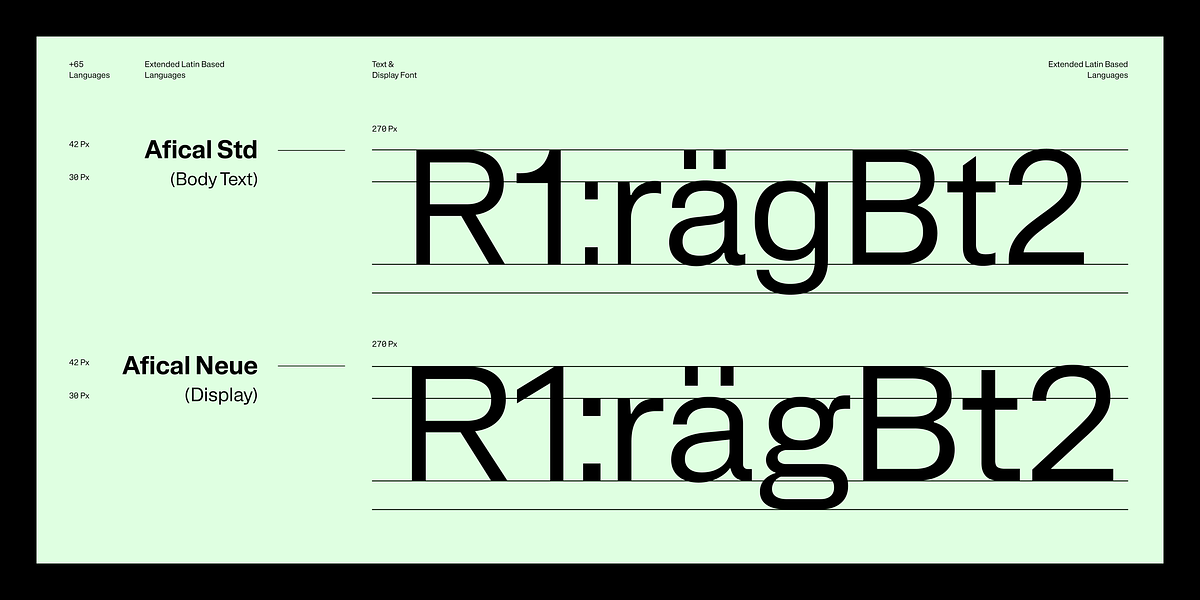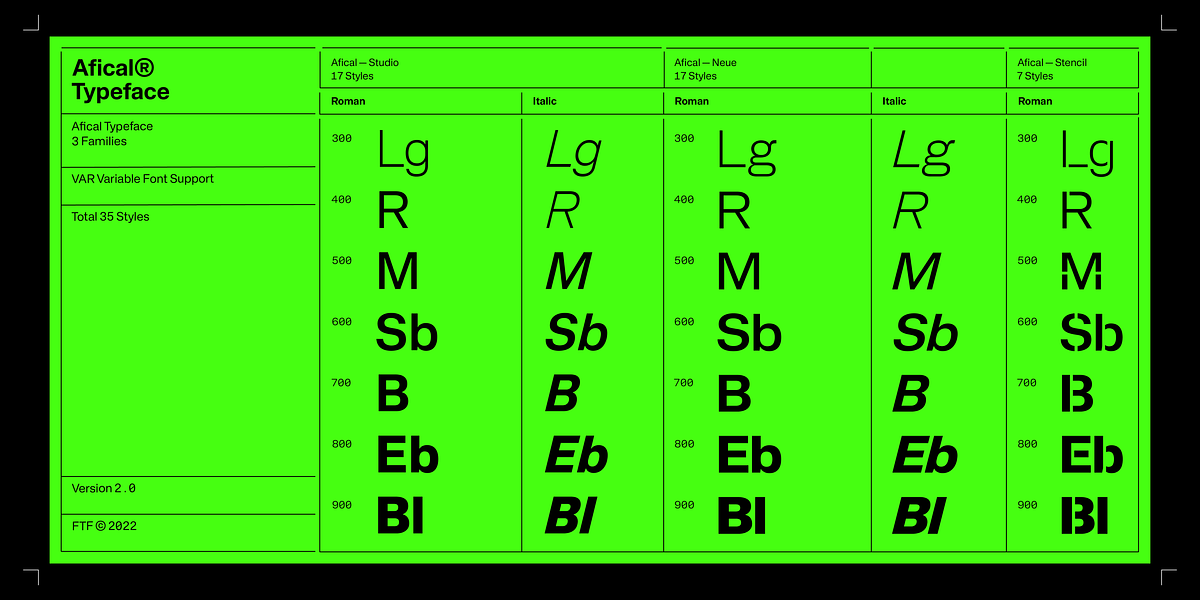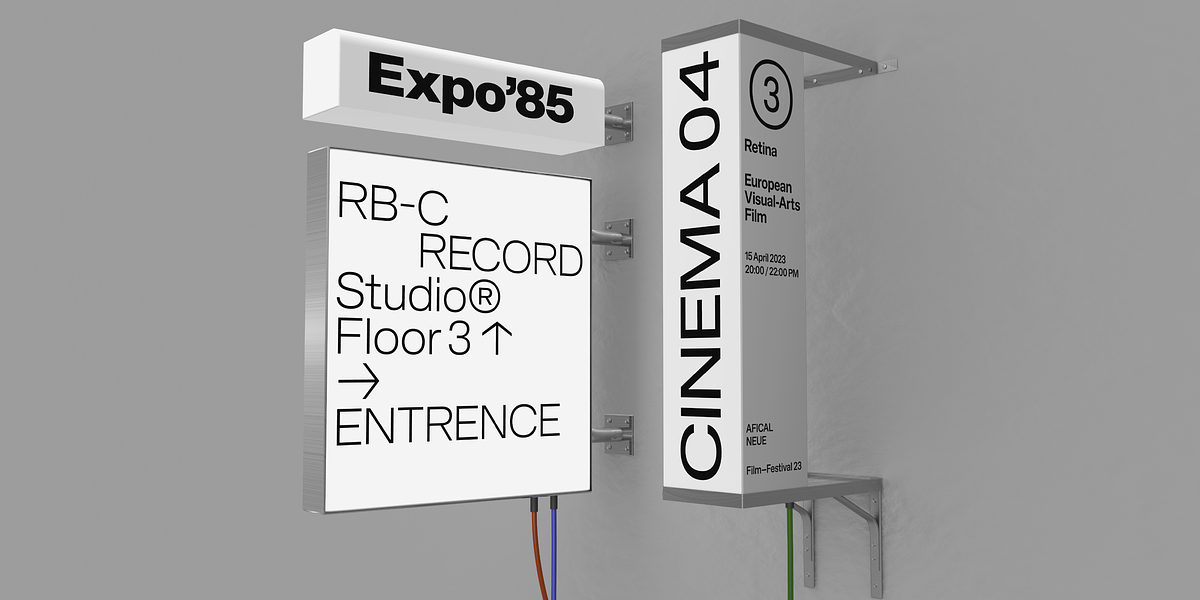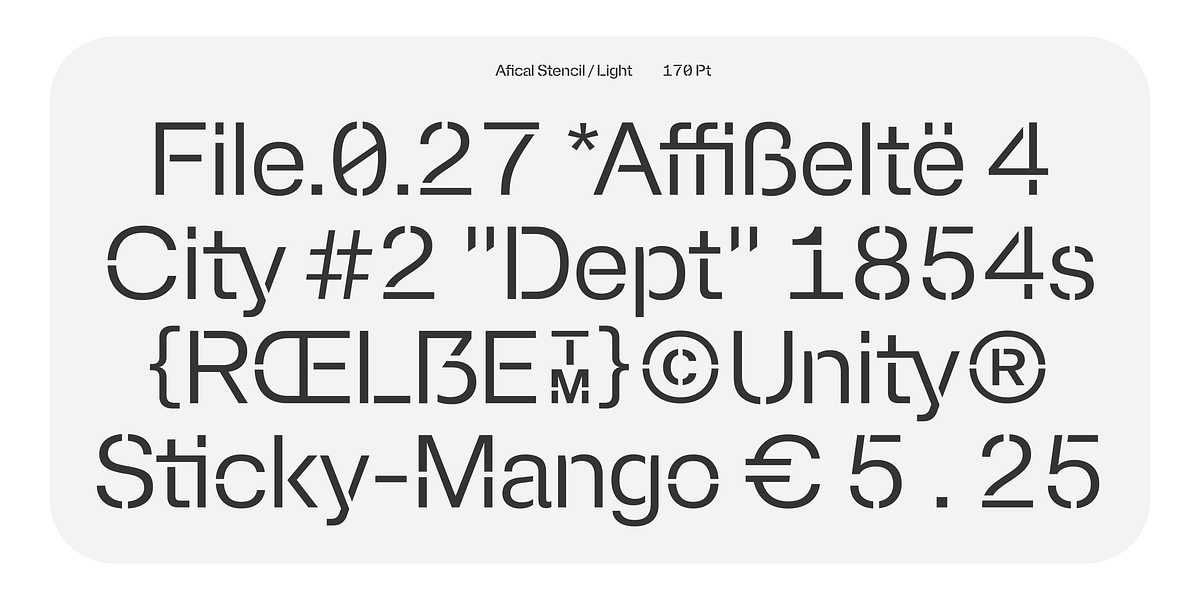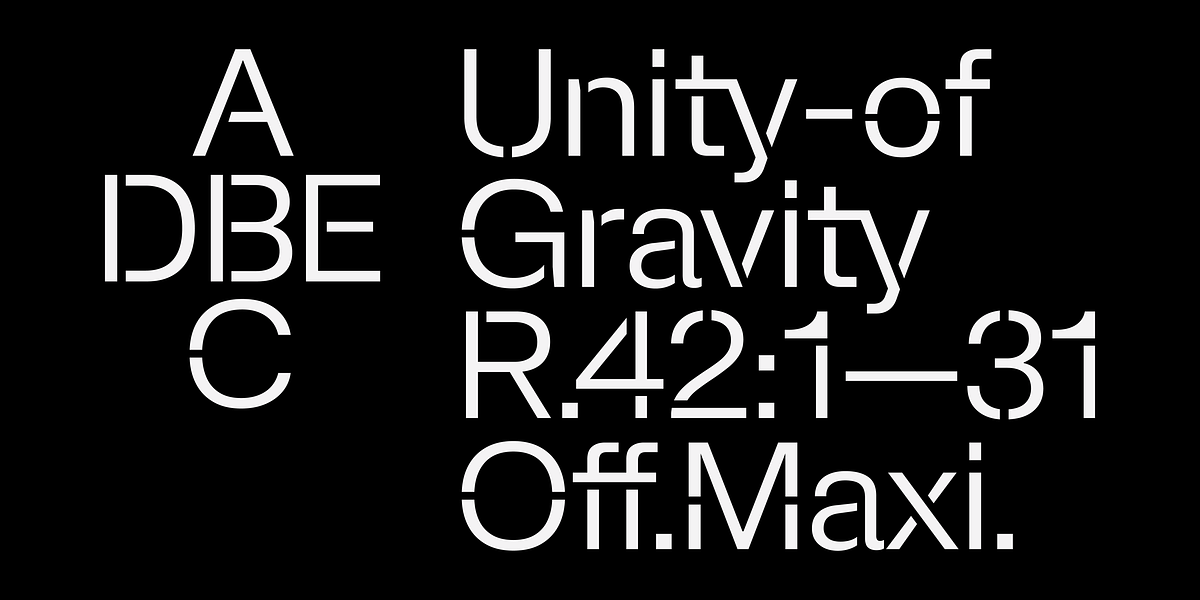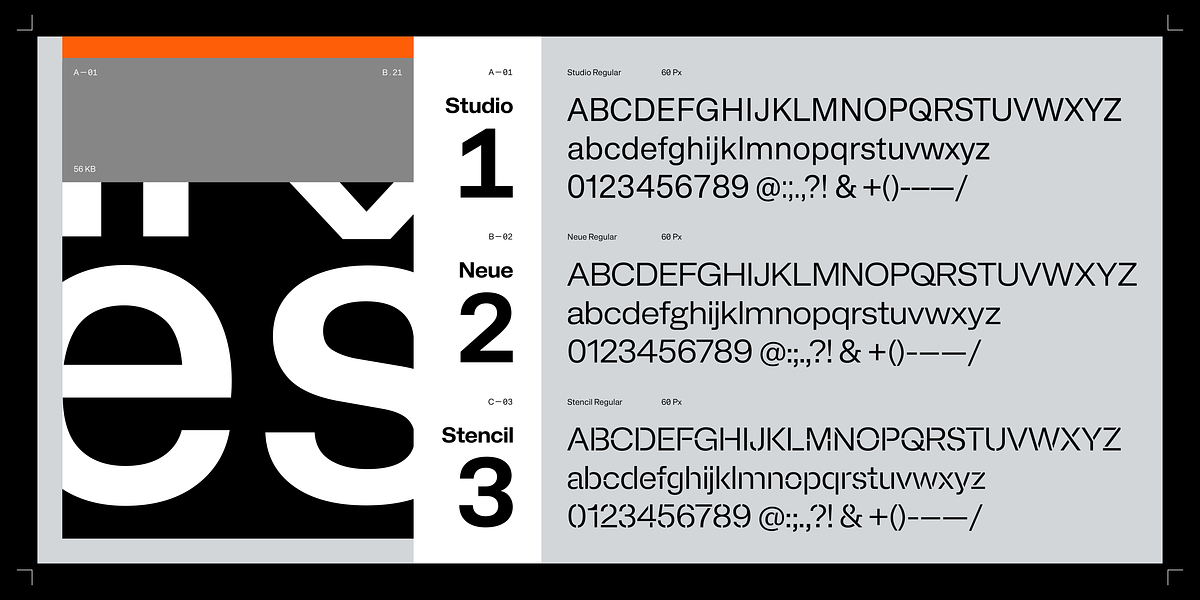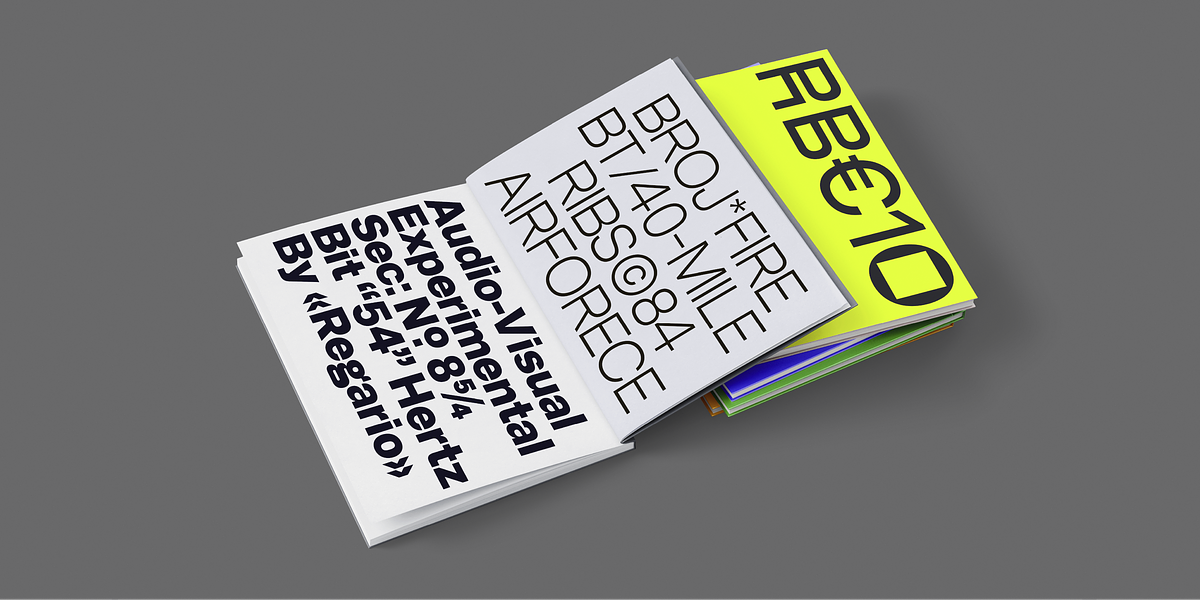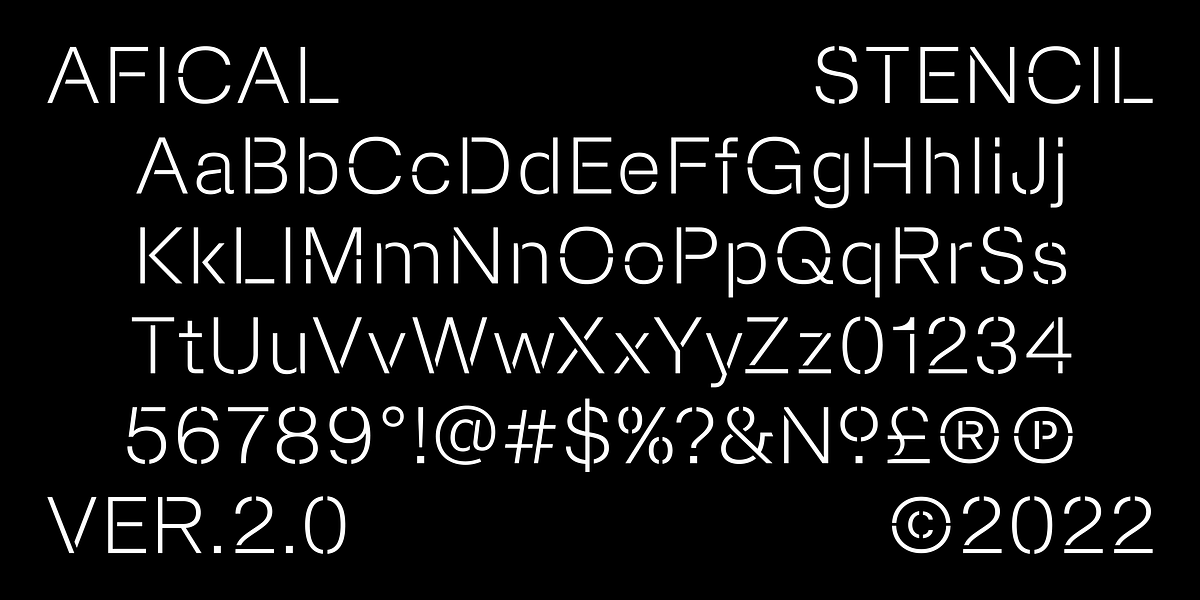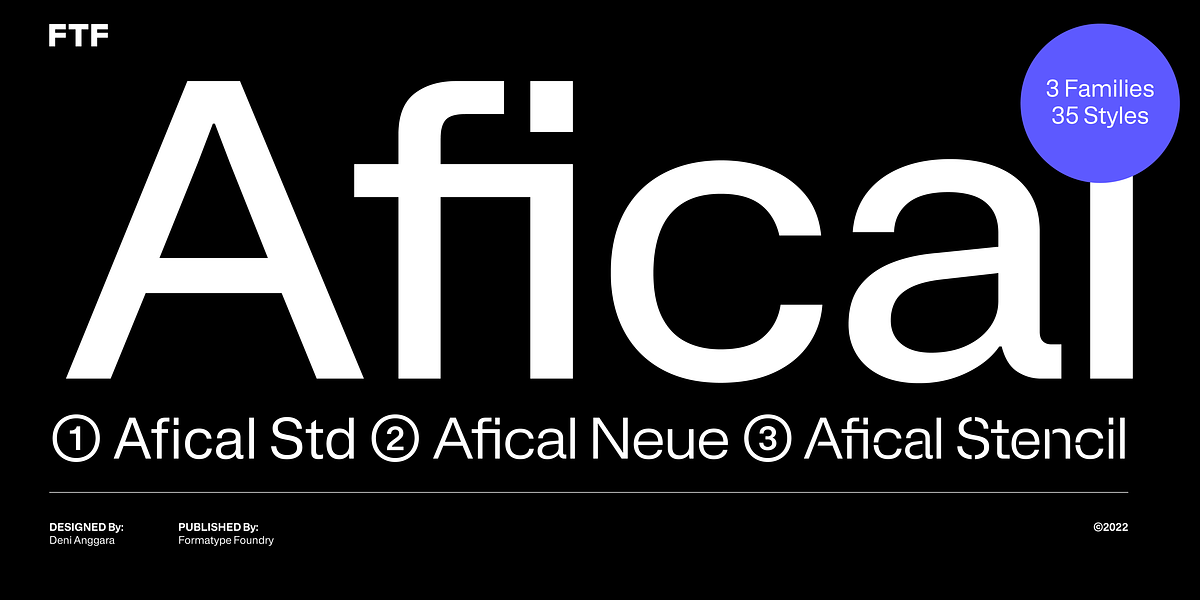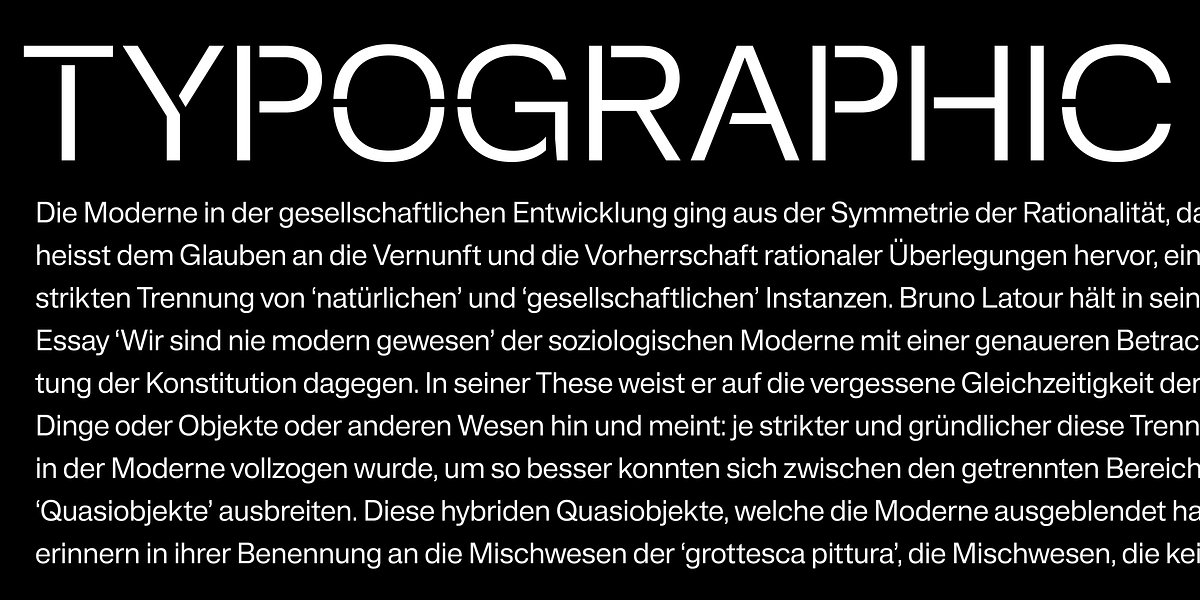
Afical
Afical is a geometric sans serif typeface designed for readability. It comes in three families: Afical Std, Afical Neue (with modernist classic Gothic influences), and Afical Stencil. The font family supports over 63 Latin-based languages and includes OpenType features such as alternate characters, fractions, ligatures, and more.